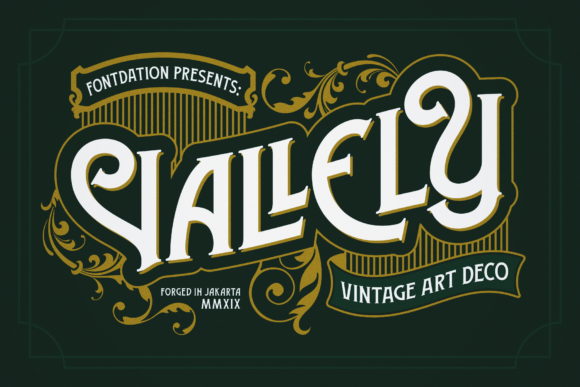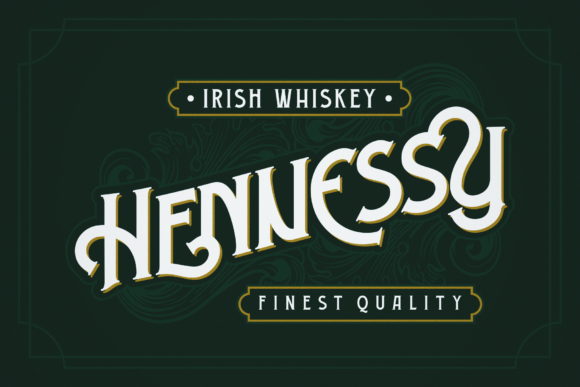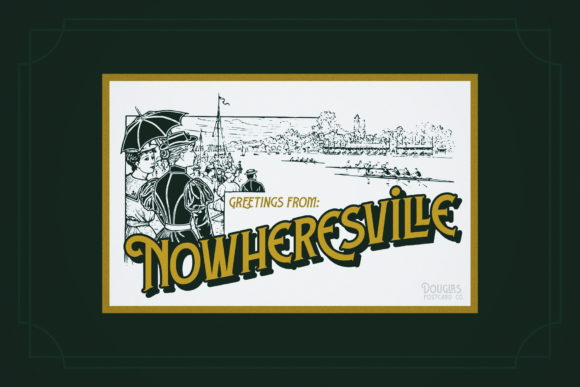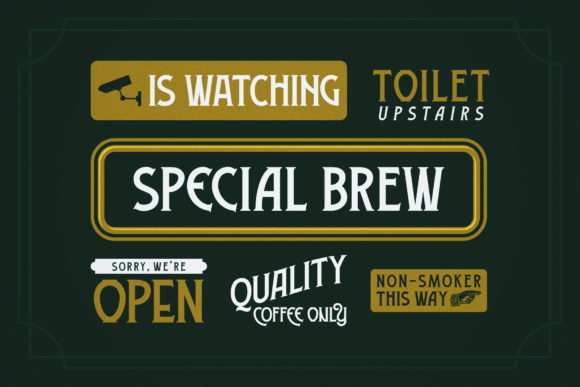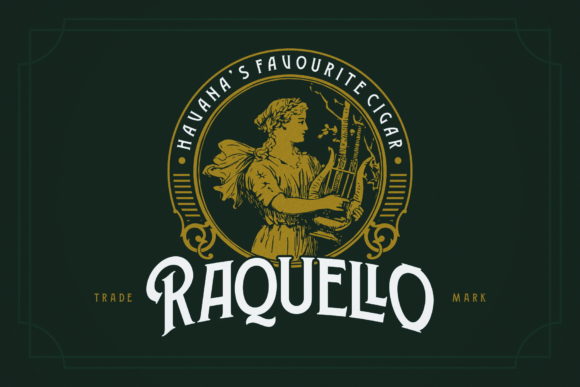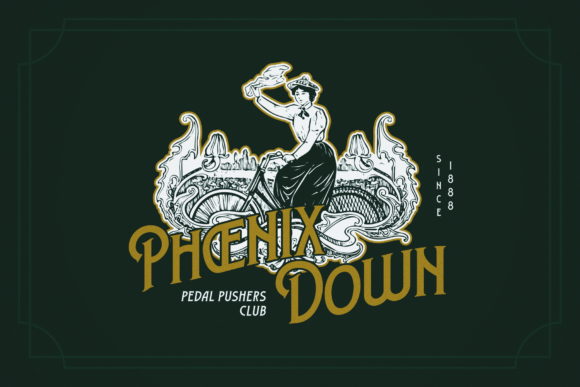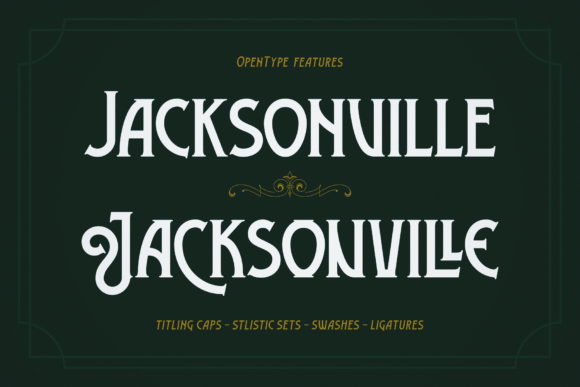
The Vallely is a classic art-deco-ish serif that was inspired by the old typography/letterings used in packaging labels and advertisements. It’s loaded with glyphs and packed with lots of alternate characters, giving you various letter combinations to play with. If you’re a fan of classic and art-deco ish typography, make sure you add this font to your design toolbox.